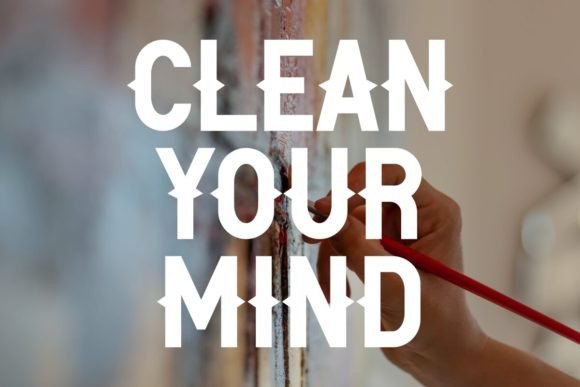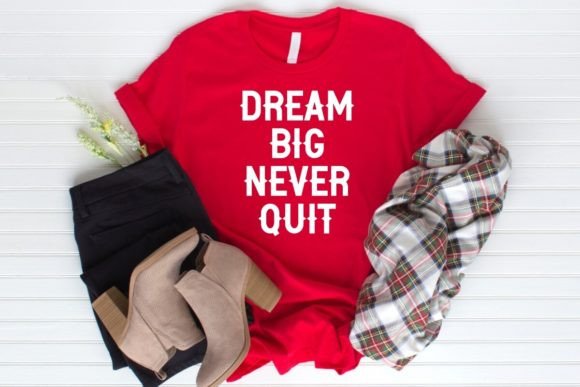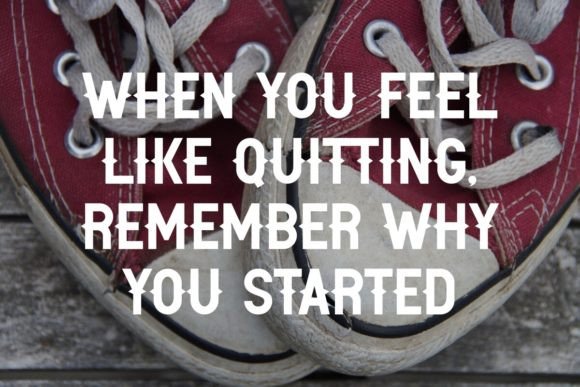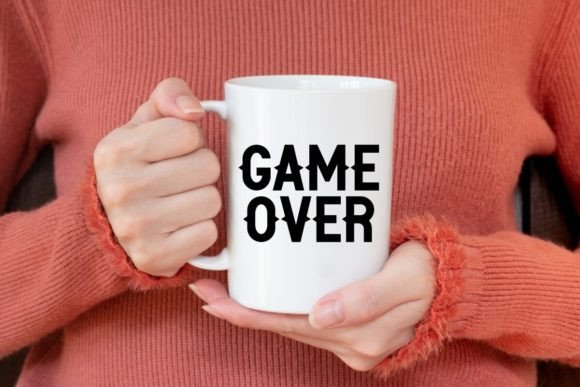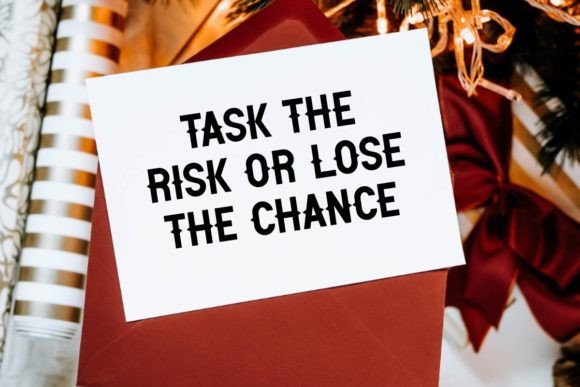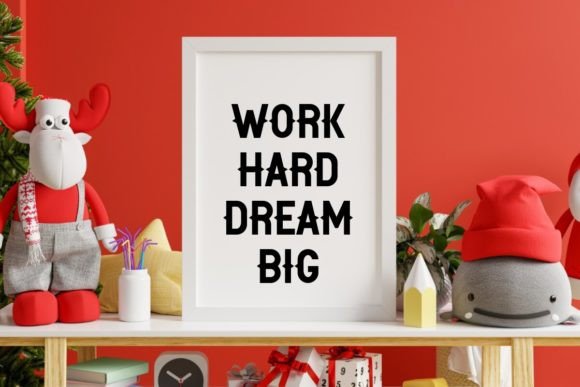
The Timeless Charm of Fancy Canva Font
Have you ever been in the middle of a design project, pouring your heart and soul into it, only to get stuck on one thing: the perfect font? I recall a particularly frustrating experience when I was working on a vintage-themed poster. My client wanted something that exuded rustic charm without looking too kitschy. That’s when I stumbled upon Fancy Canva Font, a beautiful western vintage font that combines the best of both worlds.
A Love Affair with Fancy Canva
Fancy Canva Font quickly became my go-to for adding a touch of timeless character to any project. Here’s what I love about it:
- ✨ Unique blend of rustic and elegant design elements
- ✅ Perfect for a variety of projects, from posters and quotes to mugs and tote bags
- ✅ Easy to read, even in smaller sizes
- ✅ Highly versatile, suitable for both digital and print designs
A Few Quirks to Keep in Mind
While Fancy Canva Font is an excellent choice for many projects, there are a few things to keep in mind:
- ⚠️ Some letters may appear a bit condensed, which can affect readability in very small sizes or when used for body text.
- 🤔 Limited availability of certain special characters, which might be a drawback for projects requiring extensive use of symbols.
One of the standout features of Fancy Canva Font is its support for OpenType features and glyphs. These allow for a high degree of customization:
- Stylistic alternates: Swap out certain letters for stylized versions.
- Ligatures: Combine letters for a more connected look.
- Swashes: Add elegant flourishes to your text.
The Designer Inspiration Behind Fancy Canva
Fancy Canva Font draws inspiration from the classic American West. Imagine old saloon signs, wooden wanted posters, and the elegant yet rugged typography found in vintage travel brochures. The designer aimed to capture this essence in a font that’s both nostalgic and versatile.
Q: Is Fancy Canva Font suitable for body text?
A: While Fancy Canva is primarily designed for headlines and decorative text, it’s legible enough for short paragraphs. However, for extensive body text, a more straightforward font might be more appropriate.
Q: Does Fancy Canva support non-English characters?
A: Fancy Canva has basic Latin character support. For extensive use of non-English characters, it’s best to check the font’s specific capabilities or contact the designer.